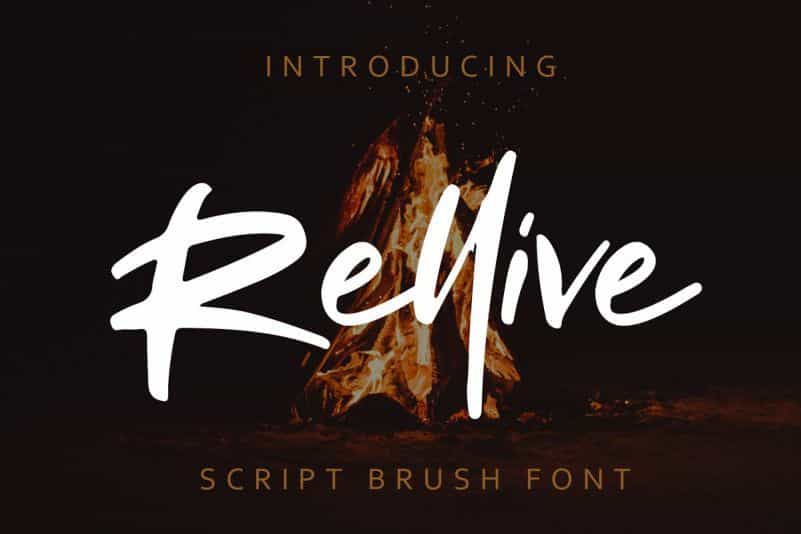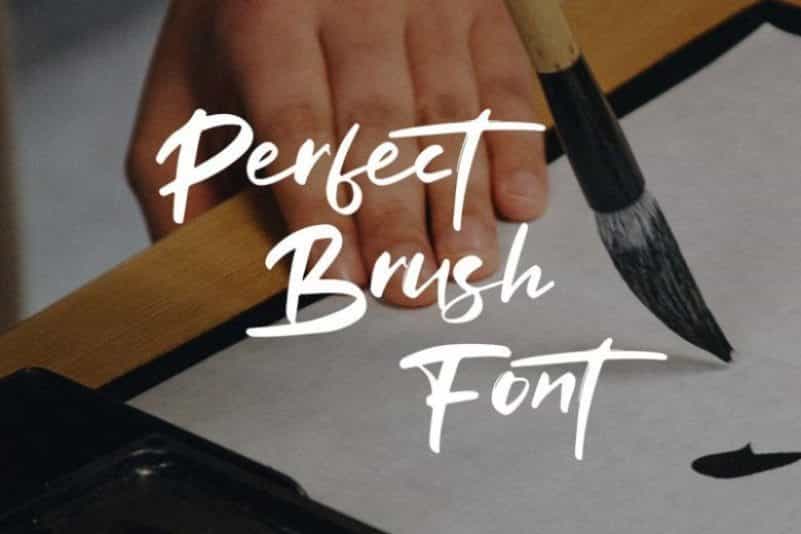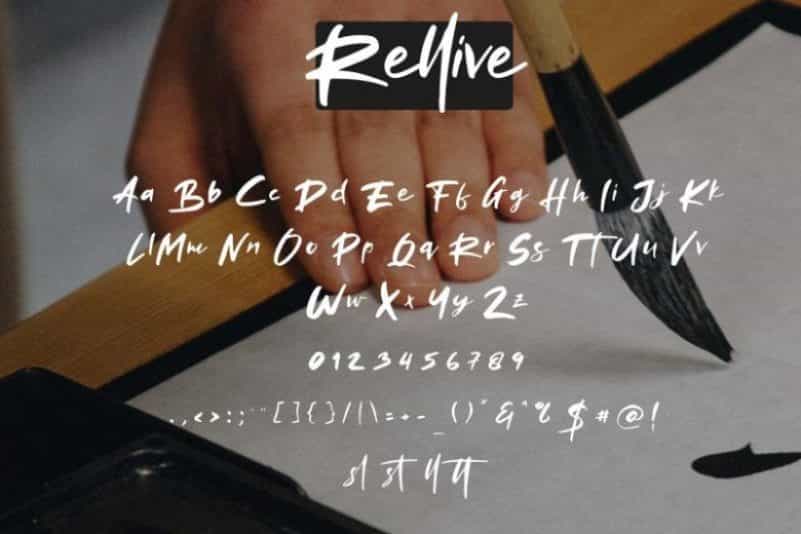
As for me, I am glad to introduce Rellive Brush Font. It has been drawn very roughly with a marker pen and a fast stroke of the hand. It is perfect for an aggressive/rebel design style especially for teenagers. Rellive Font is a font with unique handwritten characters suitable for branding, logos, weddings, social media, ads, product, packaging, designs, labels, photos, watermarks, invitations, cards, and any project requiring handwritten dishes.